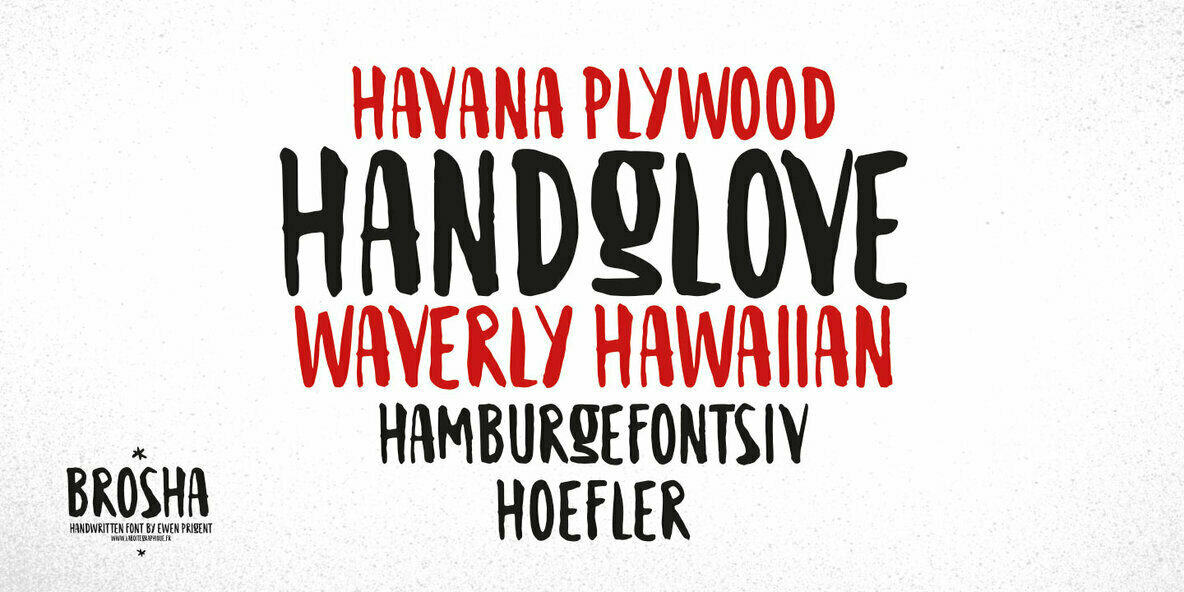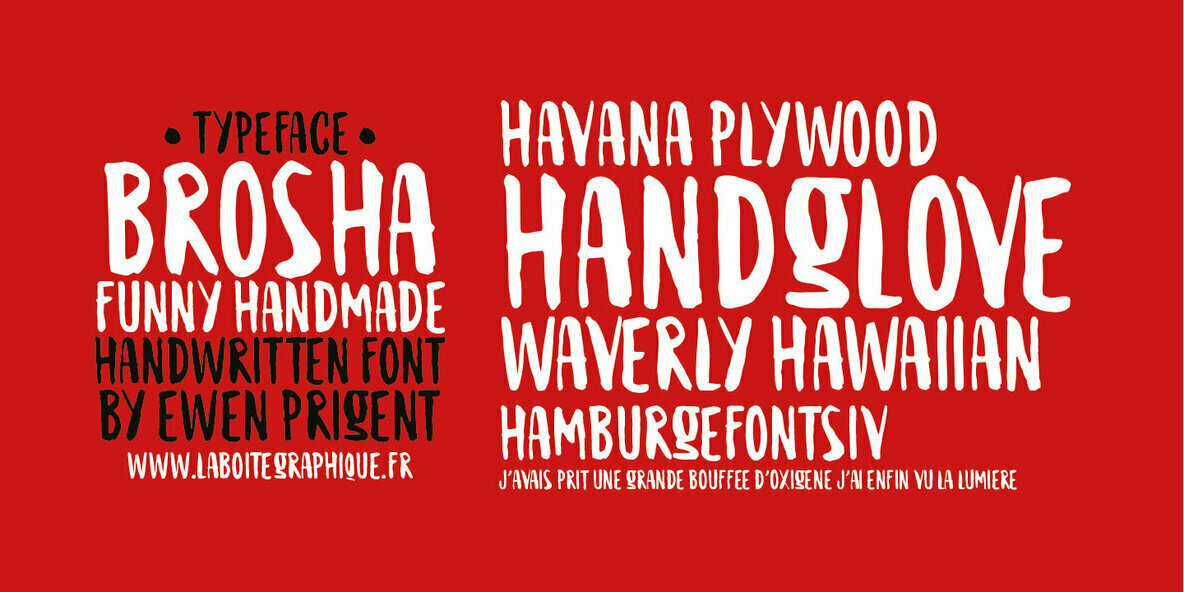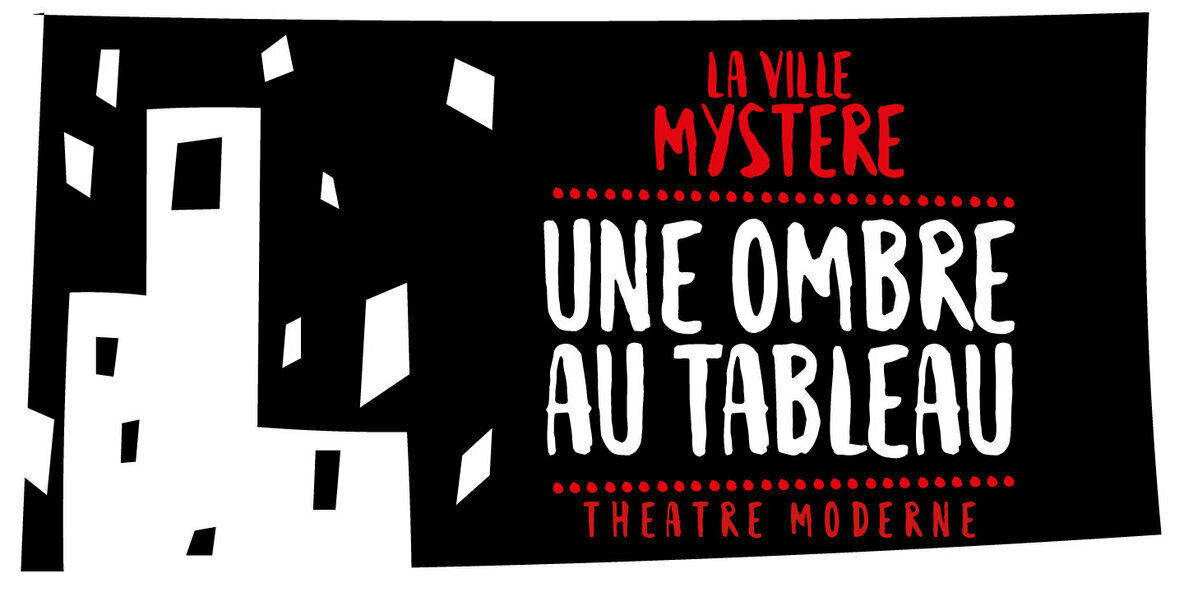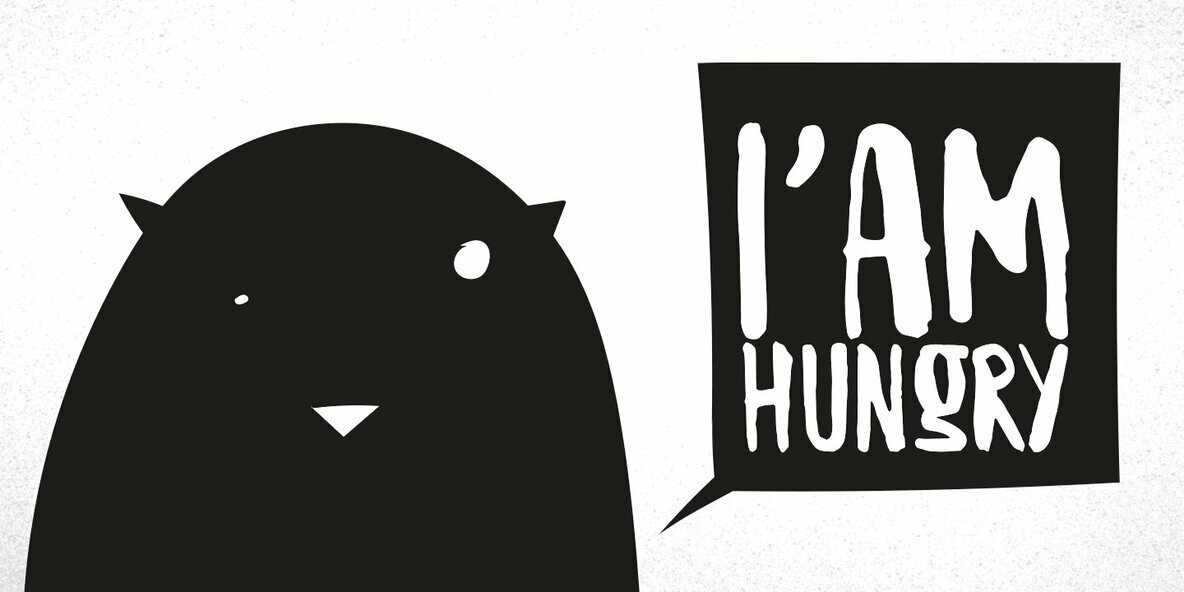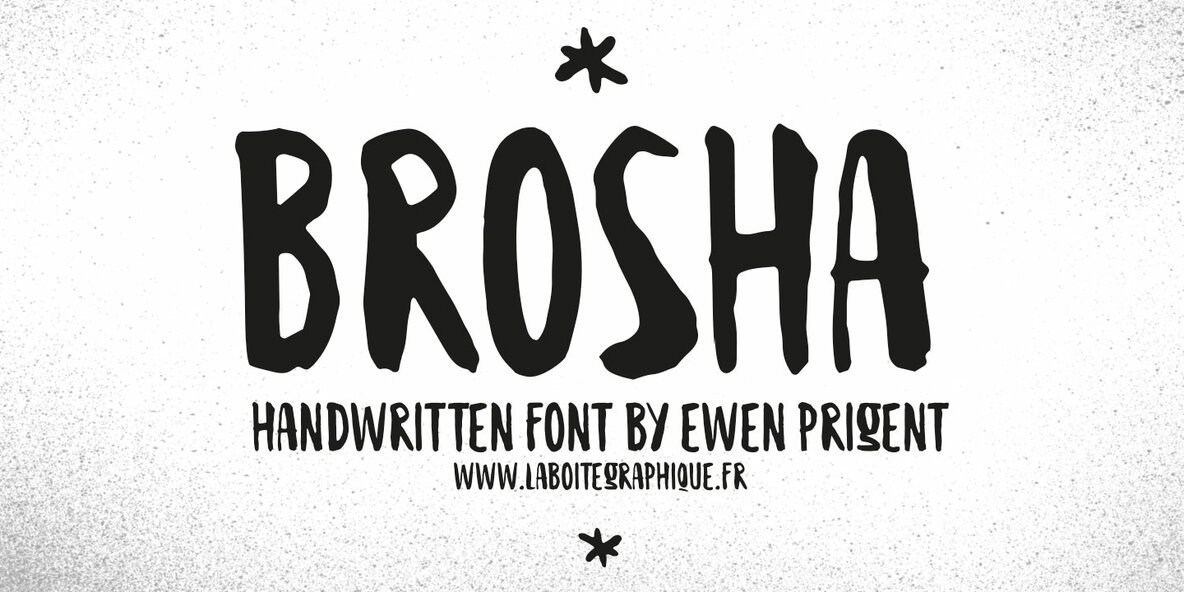
Brosha
A hand made font ideal for your graphic project : packaging, posters, children's books… and many other media !
Born in 1980, Ewen Prigent exercises in Brest (France) the profession of independent designer since 2004 under the signature of La Boîte Graphique after completing his studies at the University of Fine Arts of Rennes 2. he creates fonts "fanciful" titration since 2008.